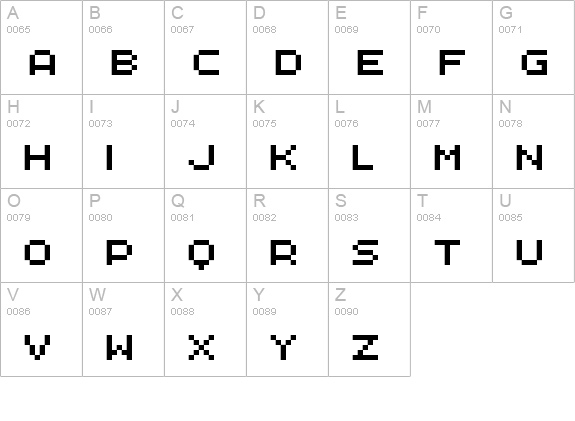
The FFF Interface02 font is a sleek and modern typeface that exudes sophistication and style. With its clean lines and contemporary design, this font is perfect for a wide range of projects, from branding to web design. The FFF Interface02 font is versatile and easy to read, making it a great choice for both print and digital media. One of the best things about the FFF Interface02 font is that it is completely free to download. You can easily access this stylish typeface at FontsMarket.com, where you can add it to your font library without any cost. Whether you're a designer looking for a fresh new font or a business owner in need of a professional typeface, the FFF Interface02 font is sure to impress with its modern aesthetic and timeless appeal. Download it today and elevate your design projects to the next level.